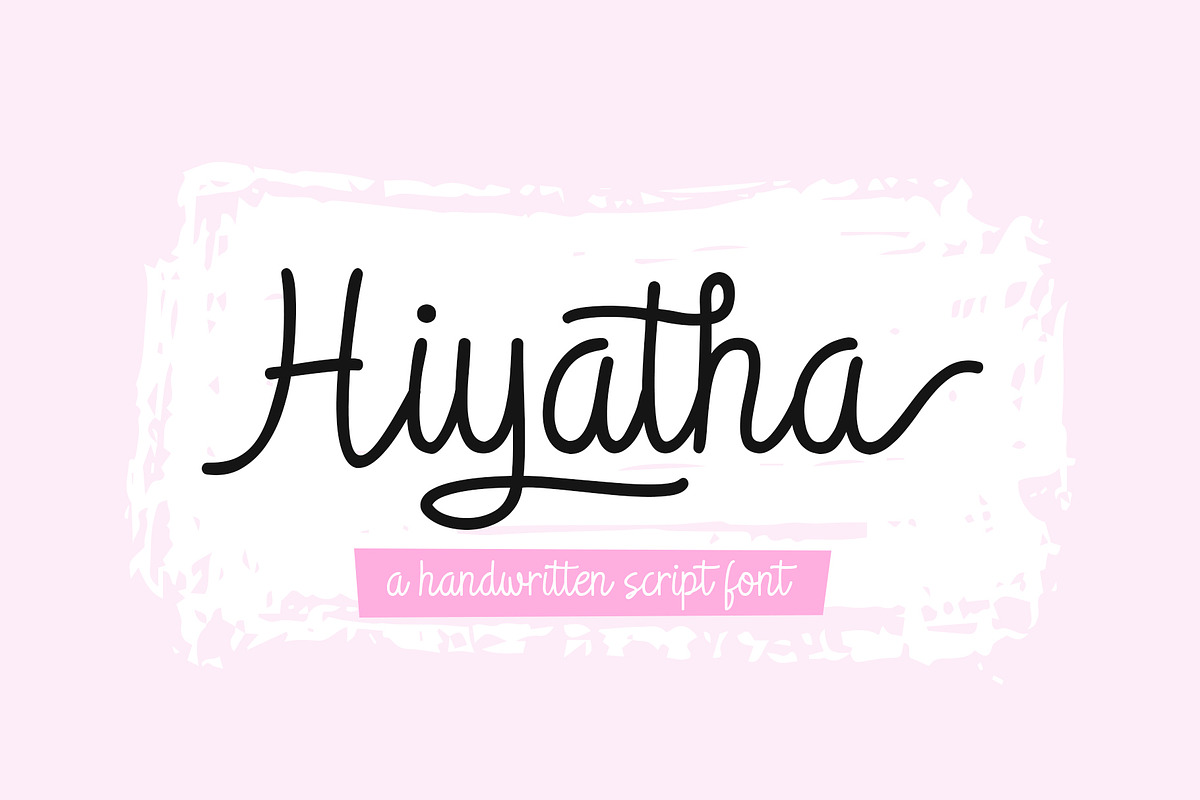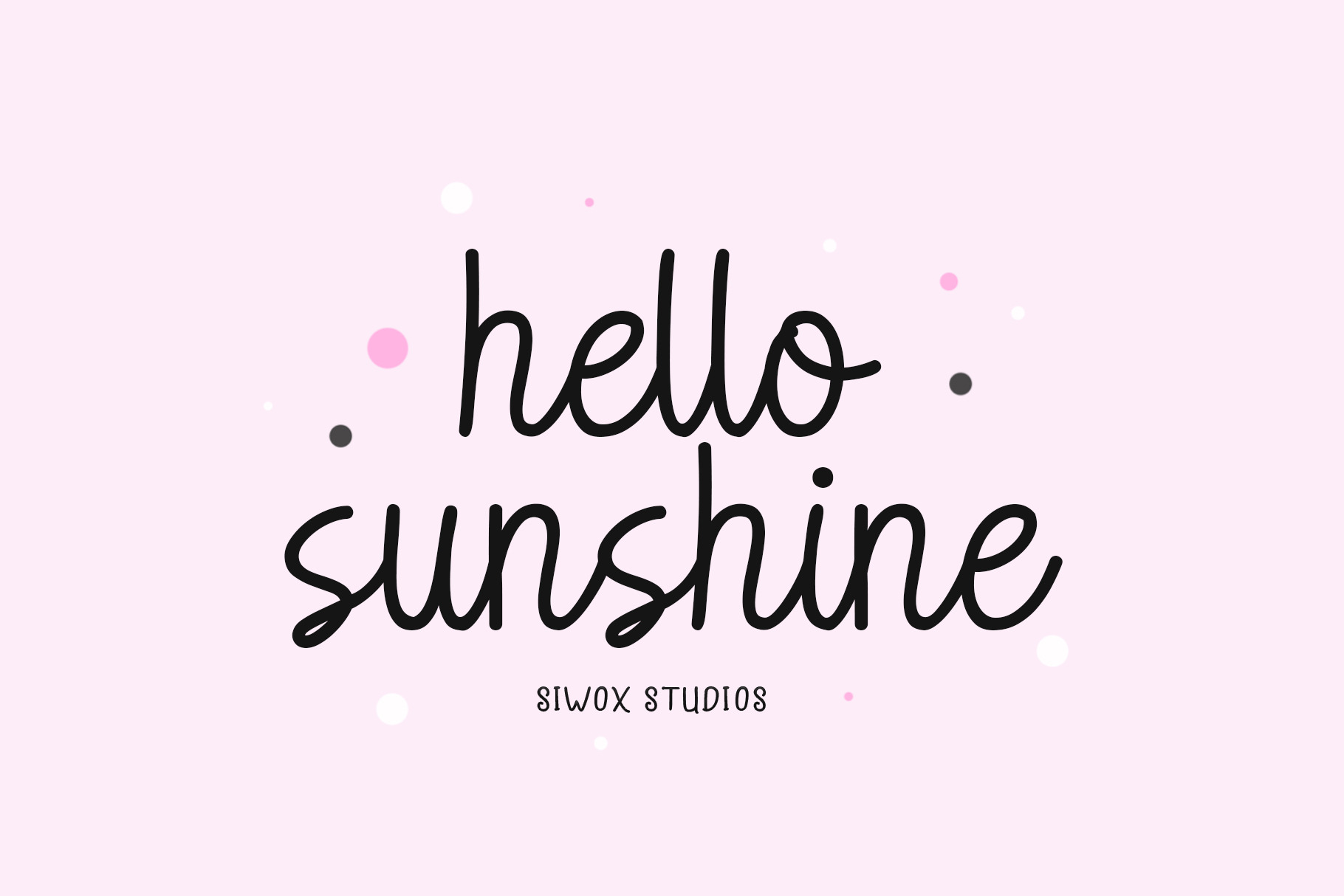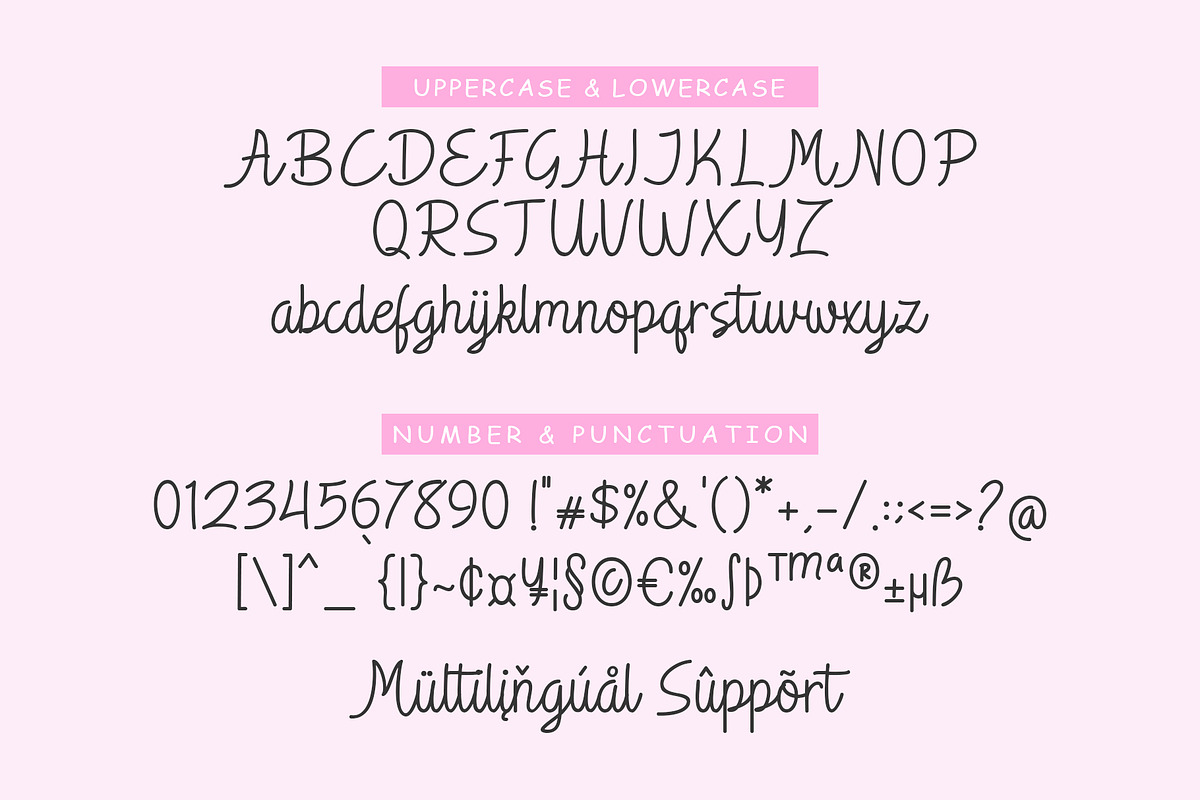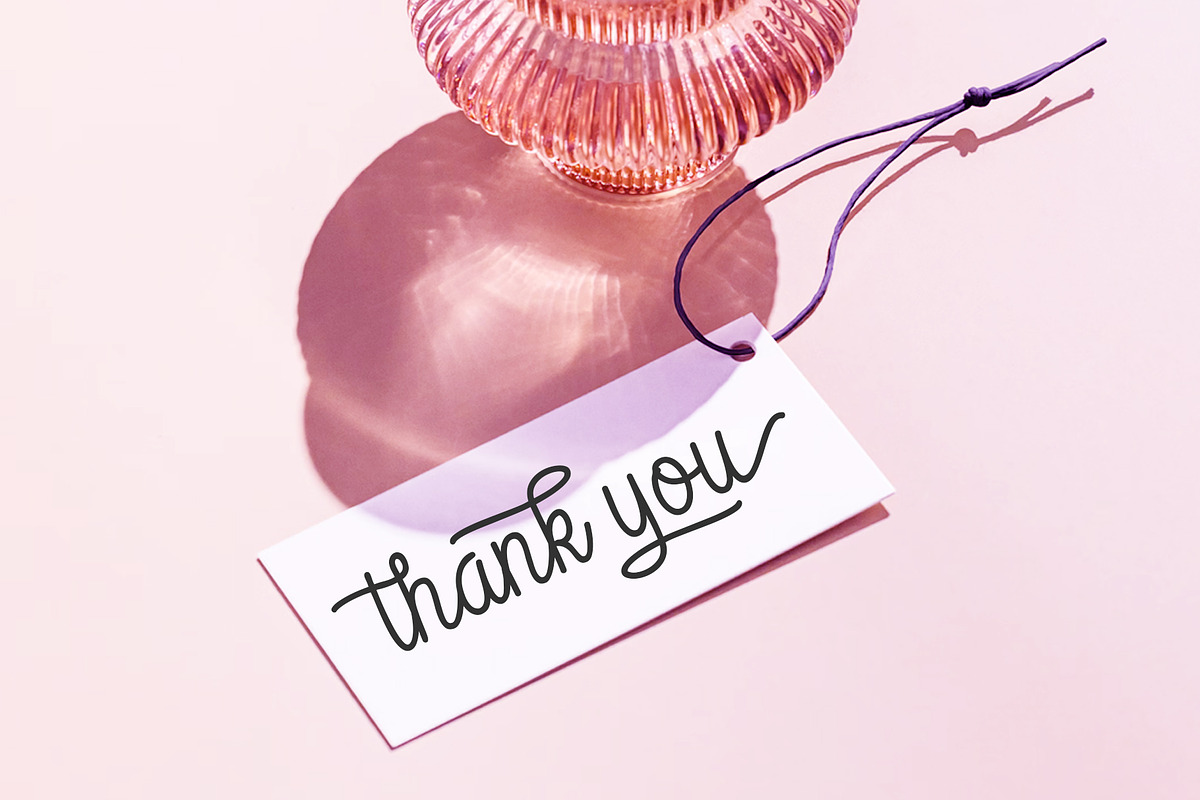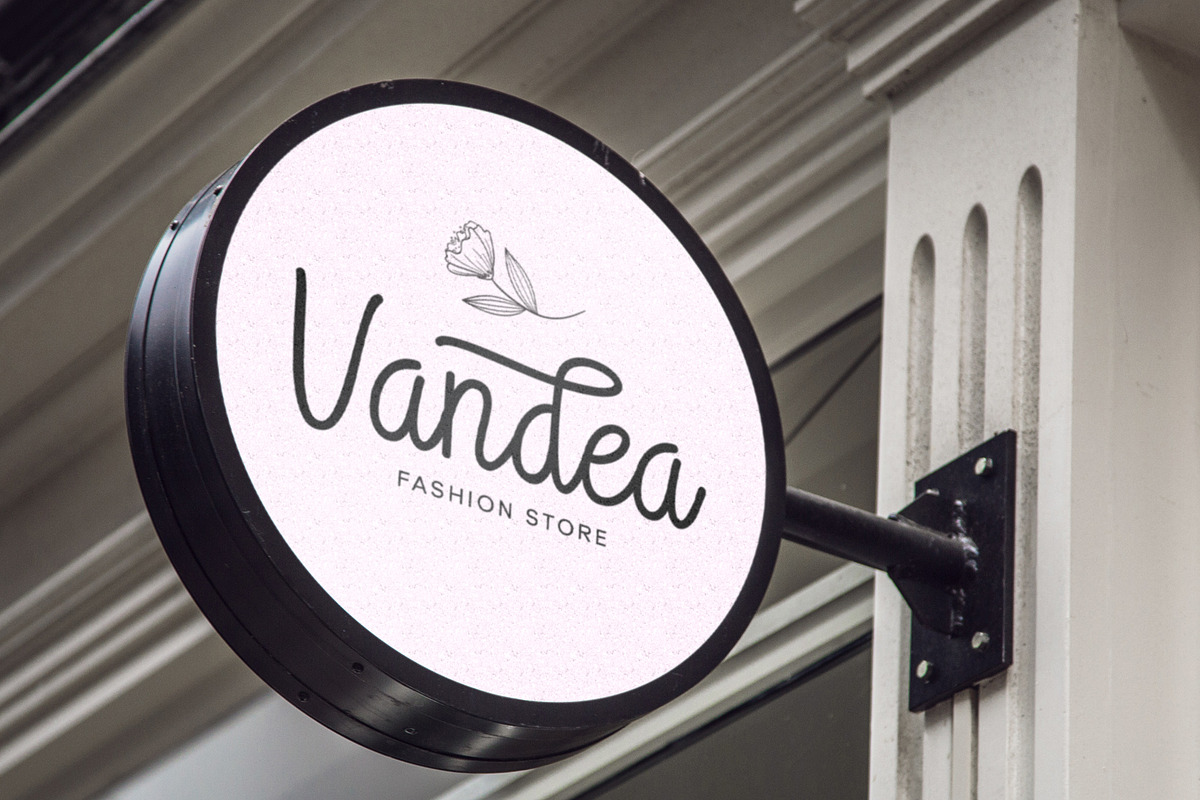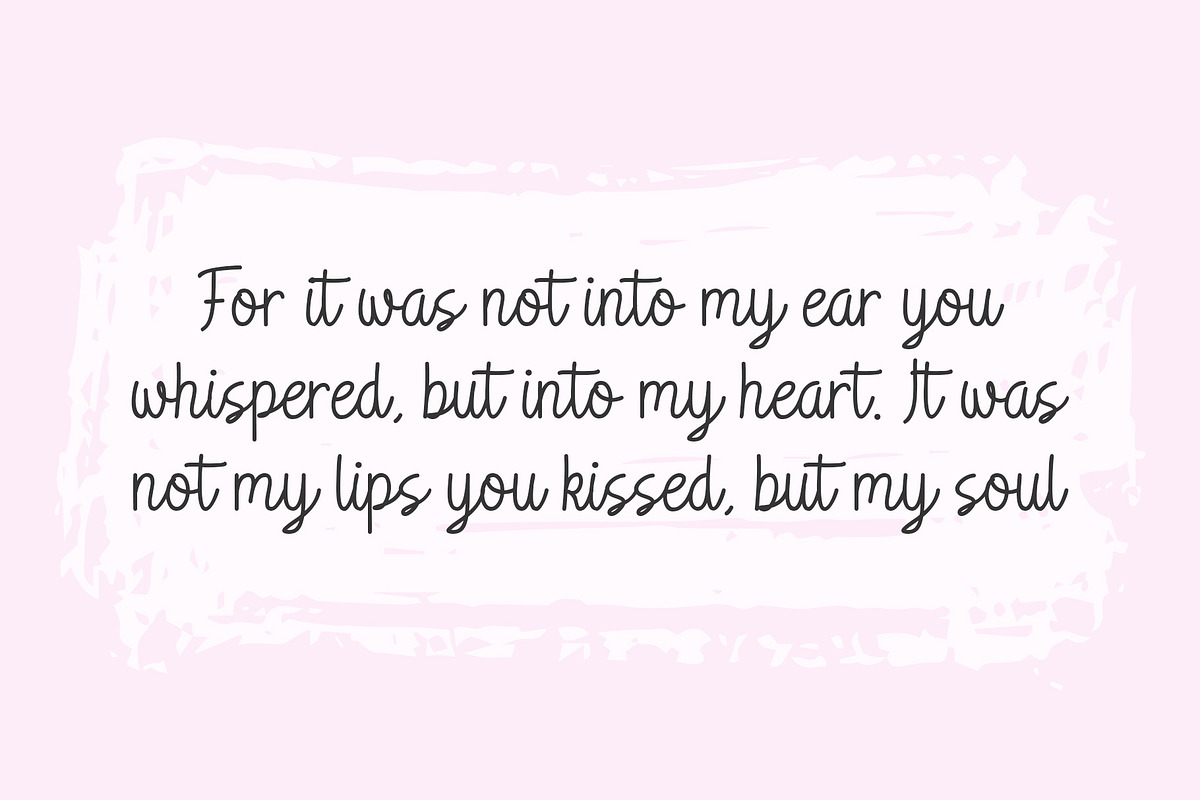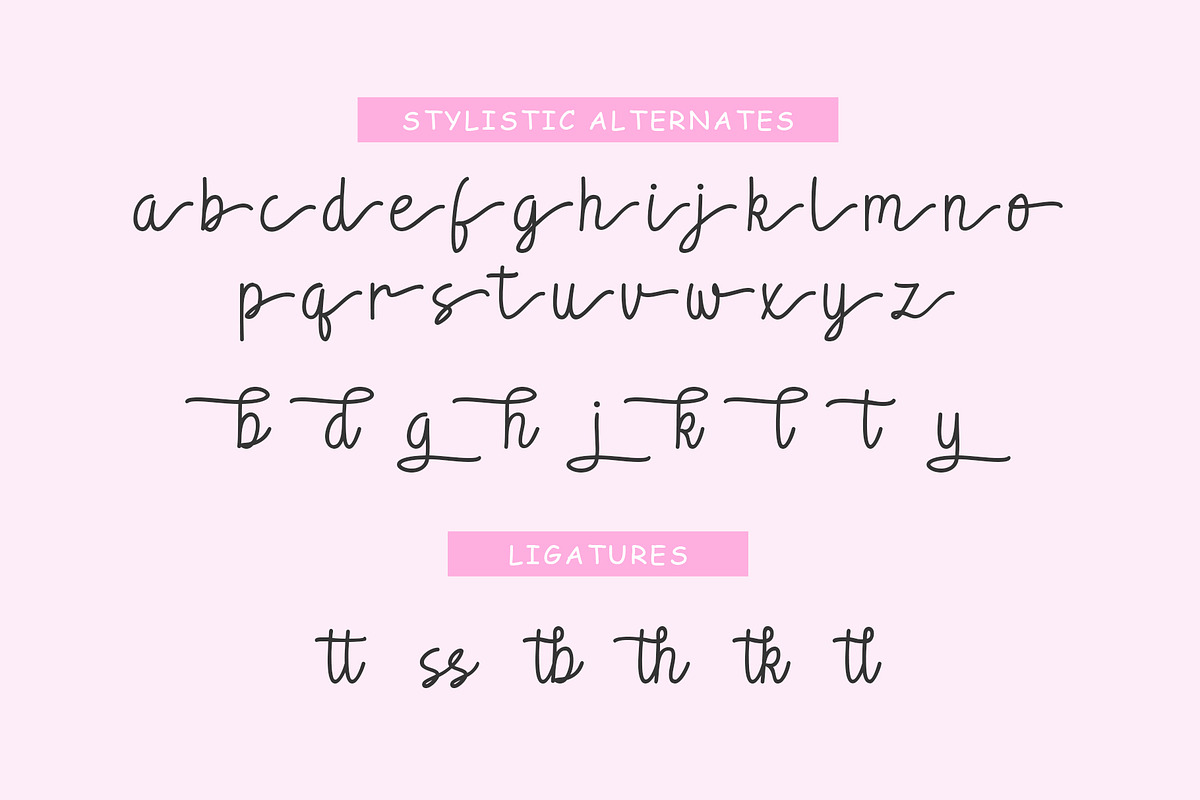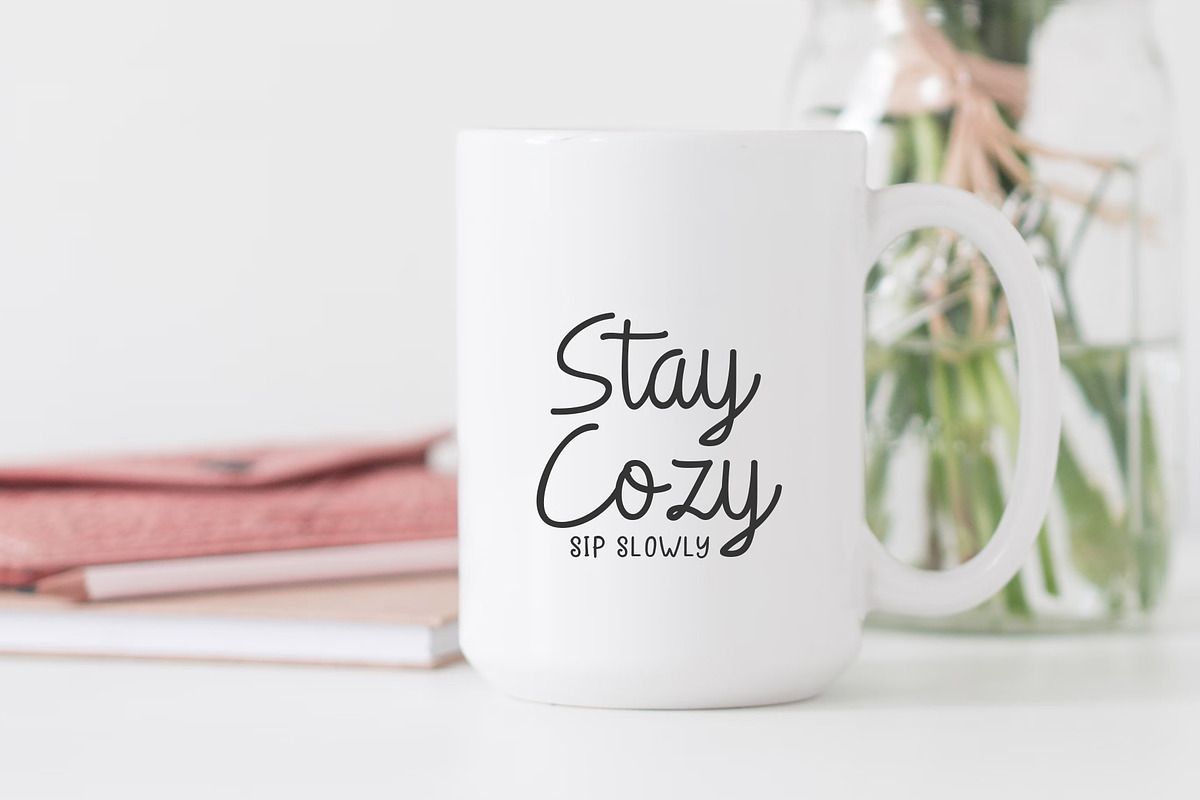
Hiyatha Script - a handwritten font
Hiyatha Script is a beautiful handwritten font with a monoline style. Perfect for logos, branding, farmhouse designs, Cricut projects, SVG files, Canva, GoodNotes, stickers, mugs, and more!
- Number, Symbol & Punctuation